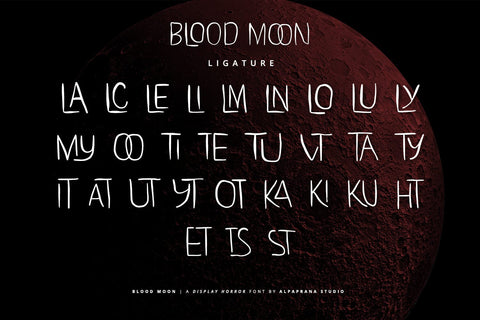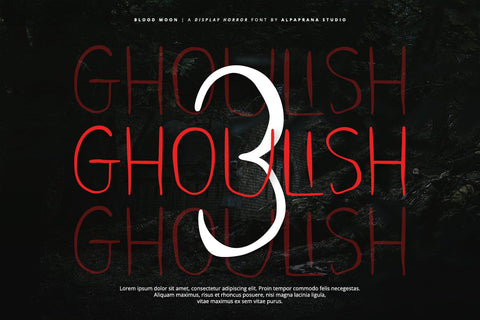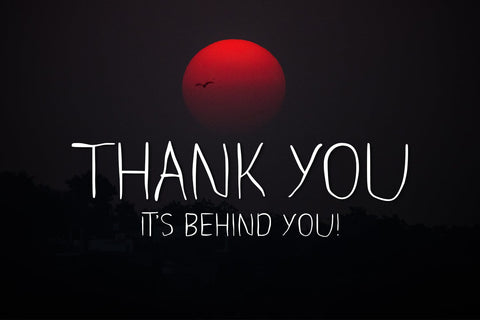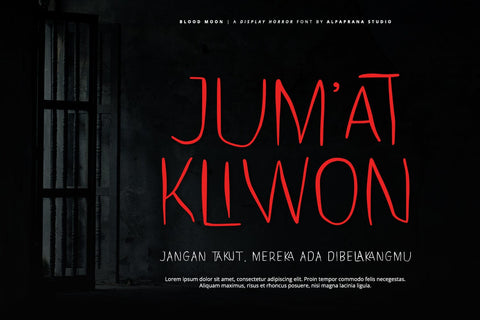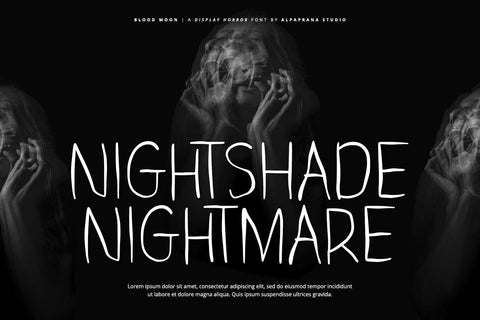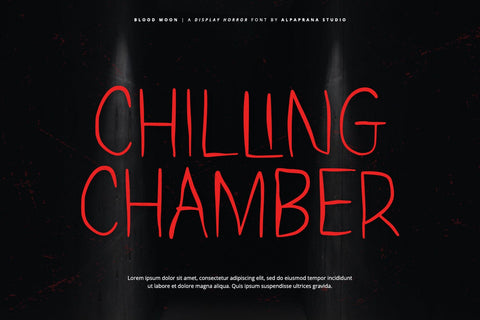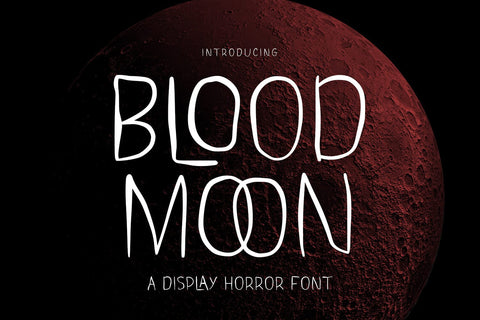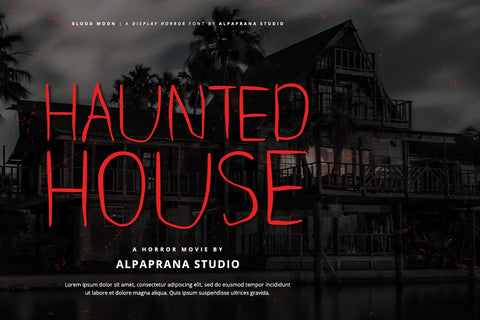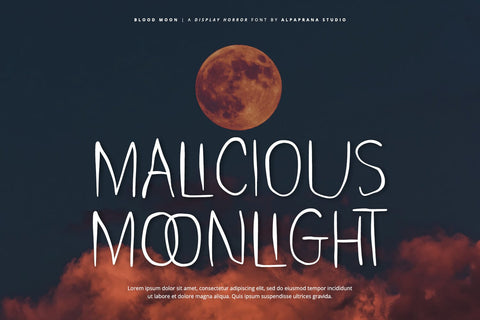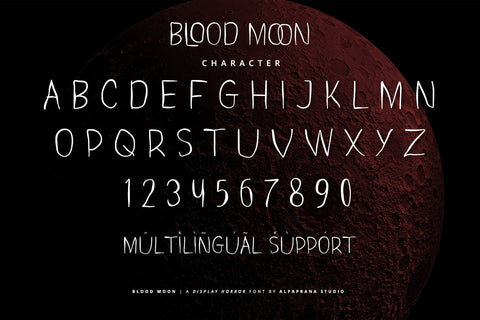
Blood Moon - Display Font
Blood Moon is a display horror font with modern feels. It will be perfectly used for Branding, Logo Design, Lettering, Logotype, Clothing, Poster, magazine, packaging, posters, shopping bags, t-shirts, book covers, photography, special events and other design project.